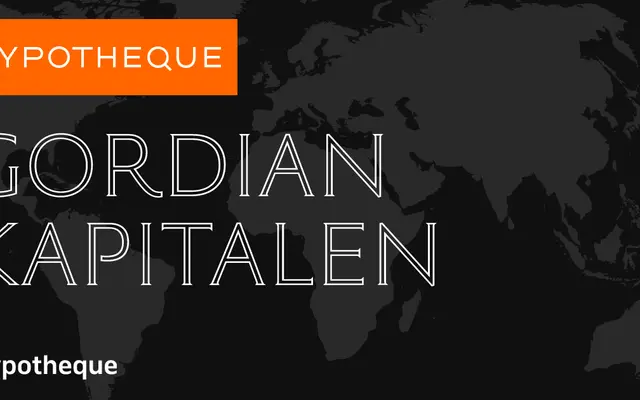
Gordian Kapitalen specimen from Typotheque
A capitals-only display system built around geometric fills and directional ornamental variants, sold as individual named styles.
Gordian Kapitalen is a capitals-focused display type system offering four weights alongside a set of speciality variants including directional cuts (NE, SE, SW, NW), circle forms, and randomised options. Each named style is sold individually under city names from Amsterdam to Luxembourg. The system sits alongside the broader Gordian family, which includes italic text weights not present in the Kapitalen branch.
A capitals-only display system with geometric ornamental variants and directional fills, placing it firmly in the display/decorative category rather than a standard text face.